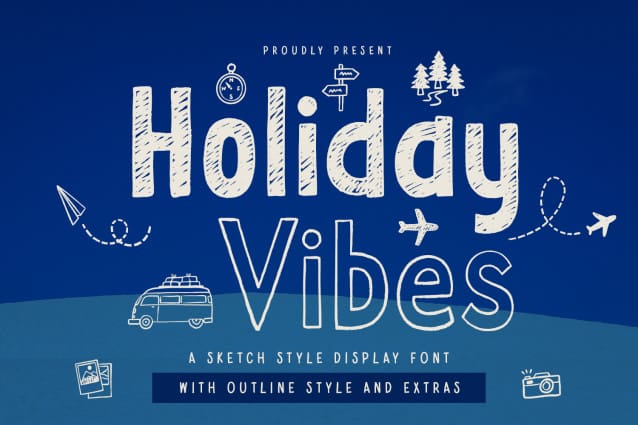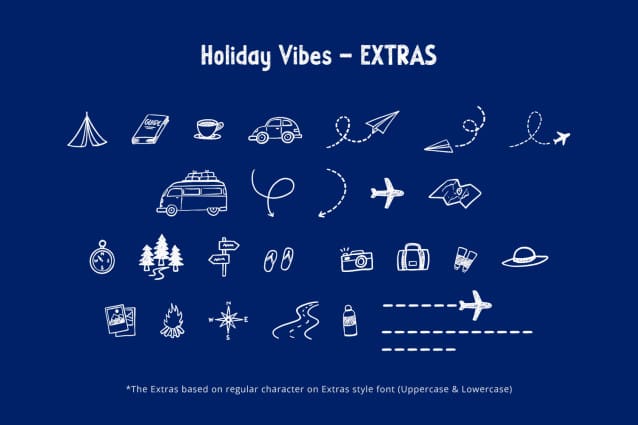
Holiday Vibes Font
Holiday Vibes Font is a display font with elegant and modern feels. It will be perfectly used for Branding, Logo Design, Lettering, Logotype, Clothing, Poster, magazine, packaging, posters, shopping bags, t-shirts, book covers, photography, special events and other design project.